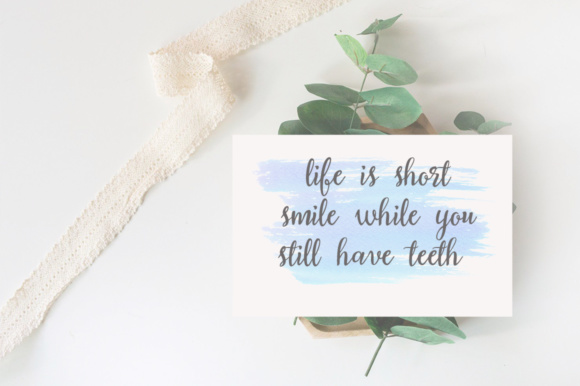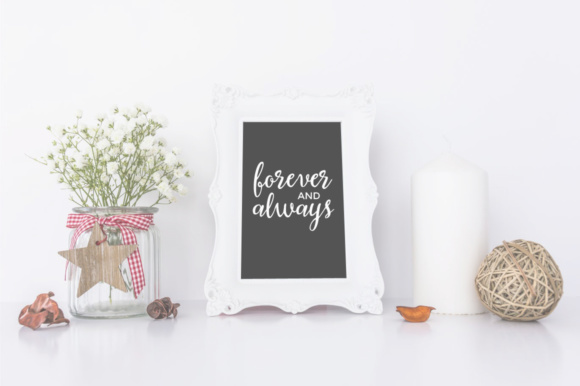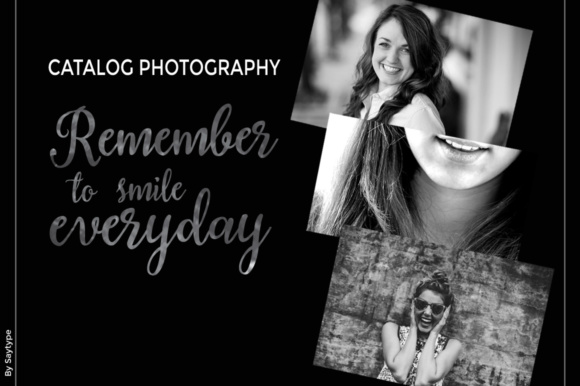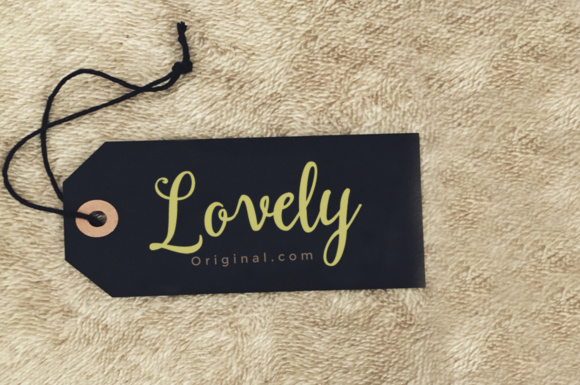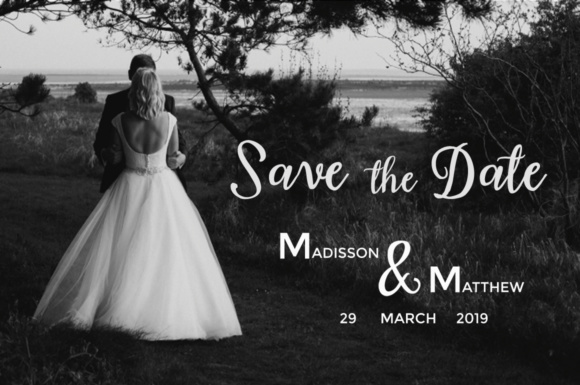
Sadira Font
About Sadira Font
Sadira Brush is a hand drawn brush font inspired by typography typefaces. Sadira is ideal for logos, clothing designs, invitations, brochures, posters, greeting cards, product packaging, and much more!